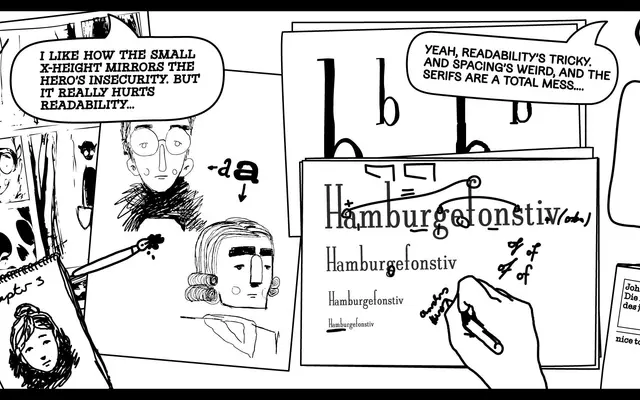
Golzheim Sans
Nice To Type · Gabriel and Jonas
A hand-drawn grotesque with comic origins, spanning ten weights with italics, variable font support, and over 300 bundled emojis.
Born from a student-era concept at the Düsseldorf University of Applied Sciences, Golzheim Sans pairs with its serif counterpart to form a family rooted in the tension between hairline pencil and ultra-black marker. Distinct spurs in the lowercase and intentionally unsteady strokes carry a sense of movement across the full weight range, while stylistic sets for open counters and continuous strokes extend the expressive palette. Both families ship as variable fonts with weight and italic axes, and every font includes over 385 emoji and custom symbols mapped to the Private Use Area.
Golzheim Sans is a grotesque/humanist sans with hand-drawn origins, featuring expressive stroke weight variation, distinct spurs in the lowercase, and an unsteady rhythm that gives it an organic, drawn quality rather than a purely geometric or neutral character.